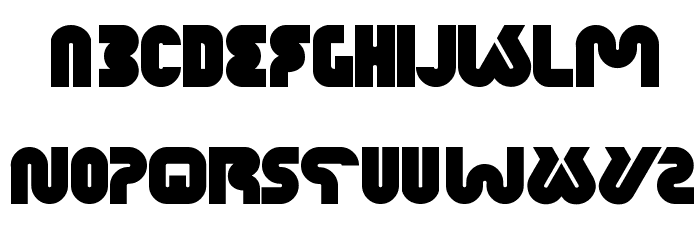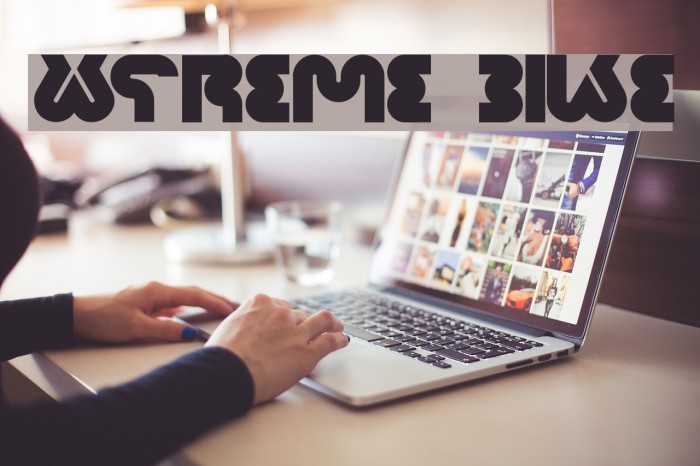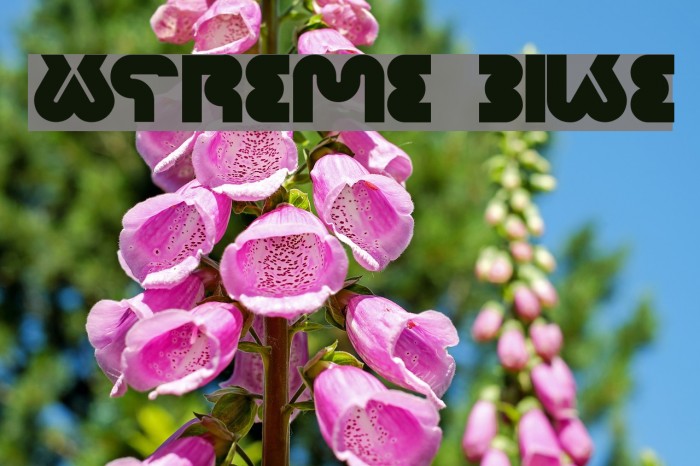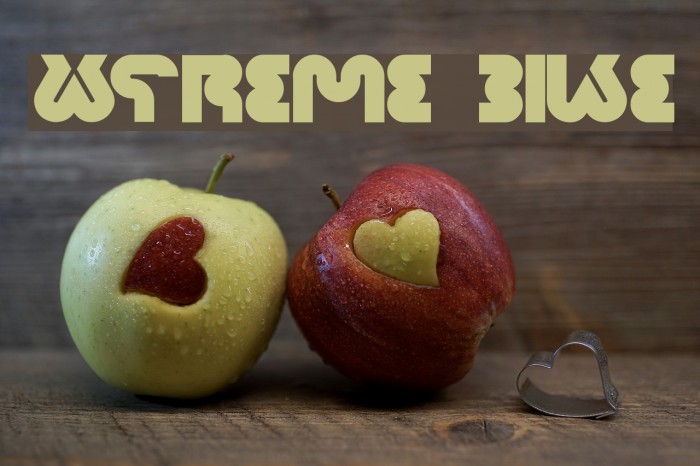
xtreme bike Font
This font features a bold and geometric style with a futuristic flair. The characters are constructed with thick, block-like shapes that create a sense of strength and modernity. The design incorporates sharp angles and unique cutouts, giving it a distinctive and edgy appearance. The uppercase letters are particularly striking, with a uniform height and width that contribute to a cohesive look. The font's boldness makes it highly legible, even at smaller sizes, while the geometric elements add an artistic touch. This font is ideal for projects that require a modern and impactful visual statement.
A bold, geometric font with a futuristic and edgy design.
- Proposed Projects: Ideal for branding, posters, and digital media that require a modern and impactful look.